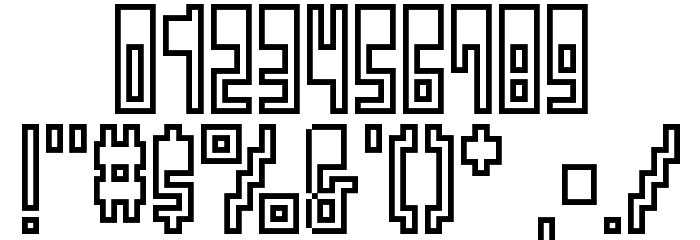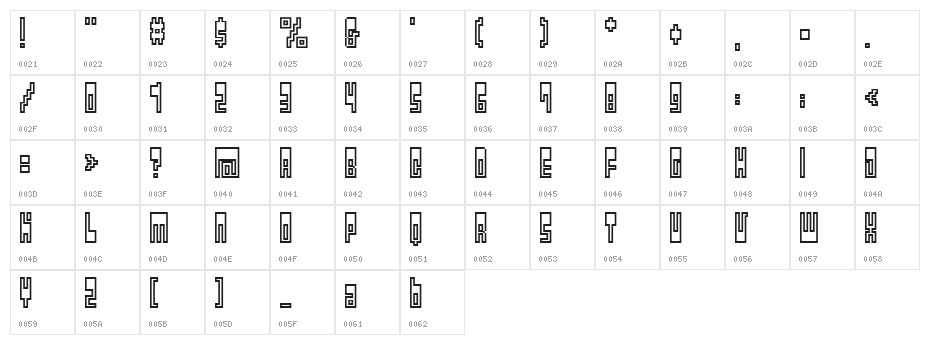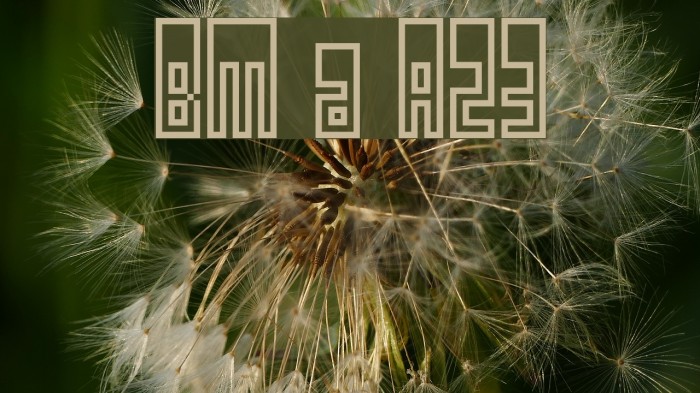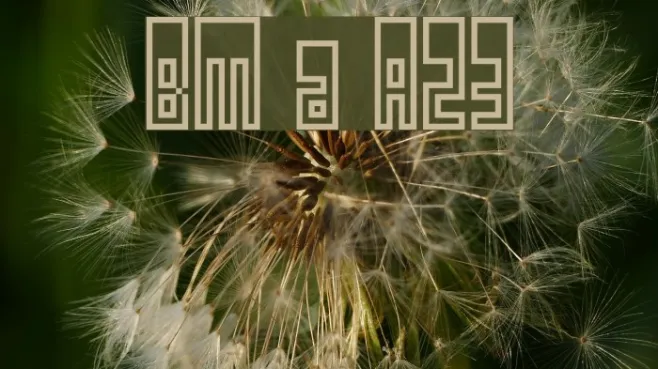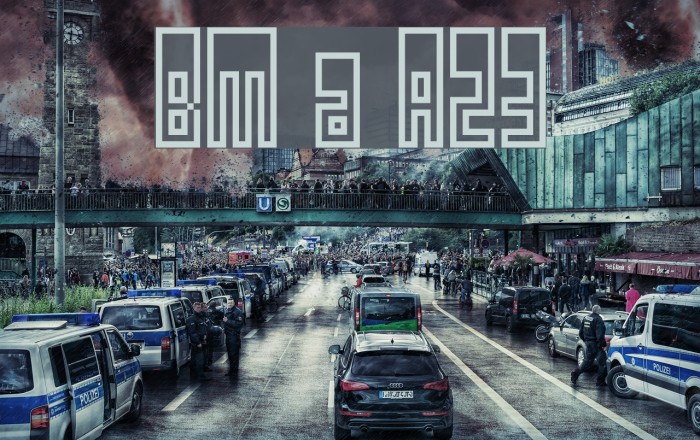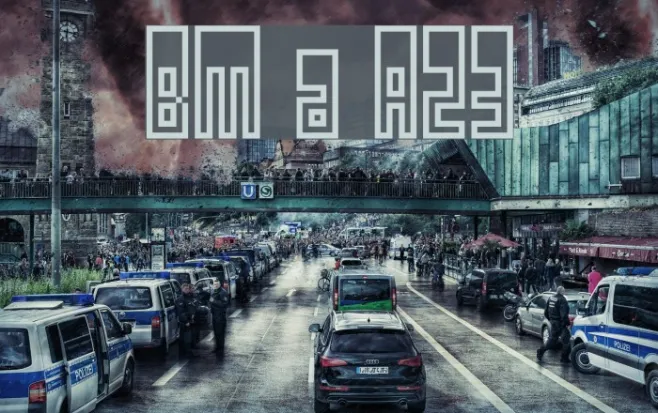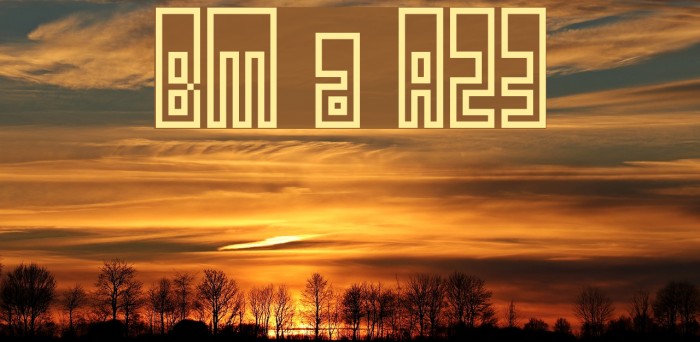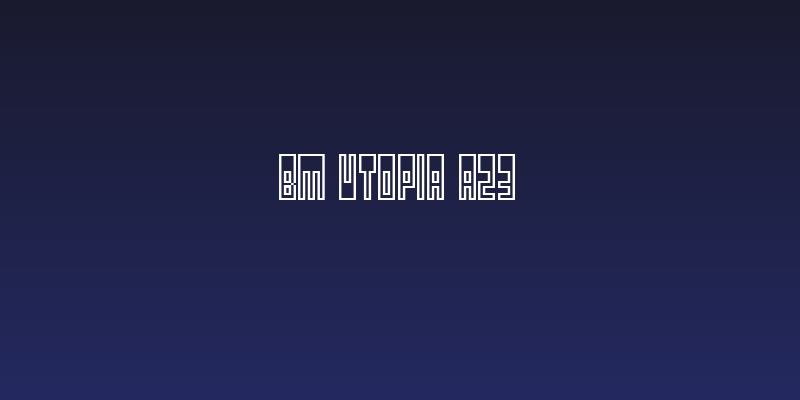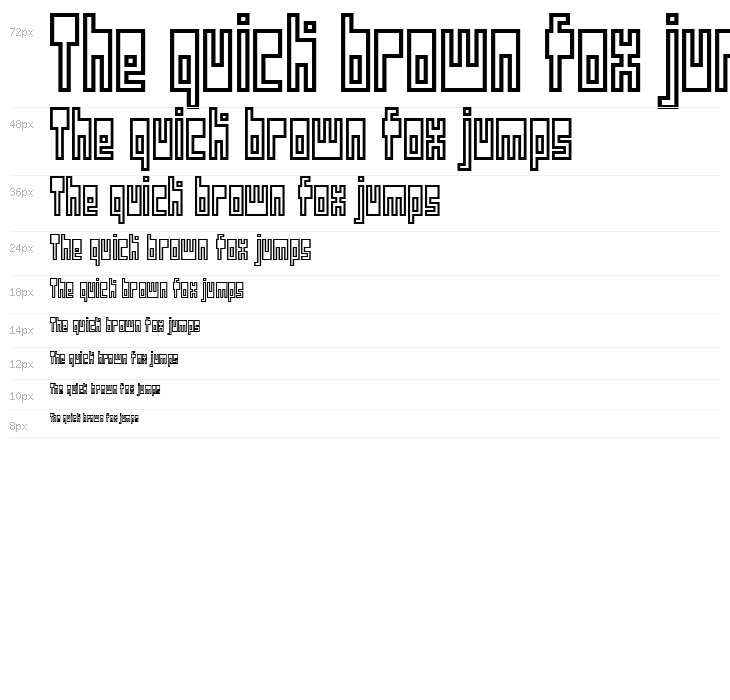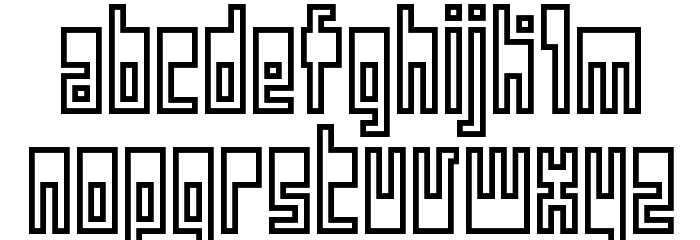
BM utopia A23 Font
BM utopia A23 Description
This font features a bold, geometric design with a distinct blocky appearance. Each character is constructed with a consistent line weight, creating a uniform and cohesive look. The style is reminiscent of digital or pixel art, with a modern, tech-inspired aesthetic. The uppercase and lowercase letters maintain a similar structure, enhancing readability while preserving the unique style. Numbers and special characters are designed to match the overall theme, ensuring a seamless integration across different text elements. The font's angular and structured form makes it stand out, ideal for projects that require a futuristic or digital feel.